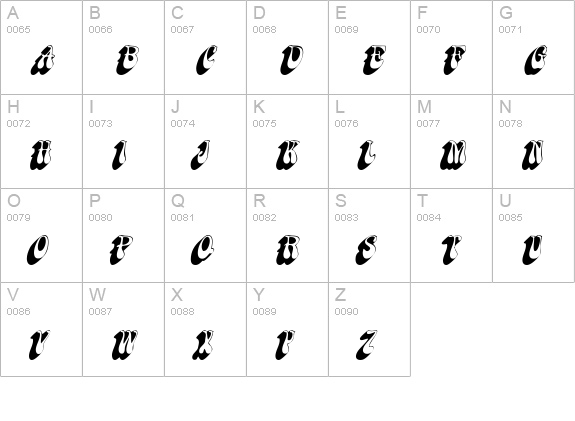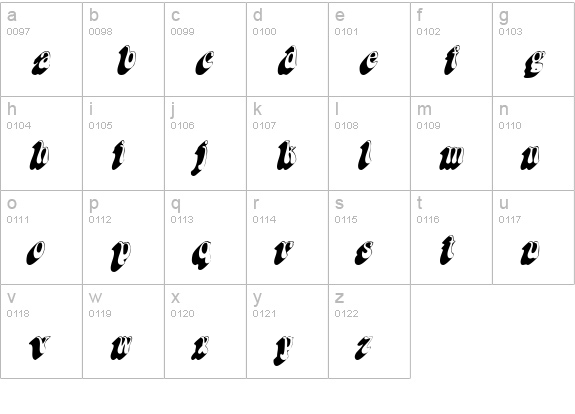
BoopShadow Italic Font Details
BoopShadow Italic is a distinctive, italic variant in the BoopShadow typeface family \xE2\x80\x94 well suited to design and typography projects.
BoopShadow Italic font is a charming and playful typeface that adds a touch of whimsy to any design project. The italicized style of this font gives it a dynamic and energetic feel, making it perfect for projects that require a modern and stylish look. The unique shadow effect adds depth and dimension, making text stand out on the page. What's even better is that BoopShadow Italic font is available for free download at FontsMarket.com. This means you can easily access this fun and creative font to use in your personal or commercial projects without any cost. So why wait? Add a touch of personality to your designs with BoopShadow Italic font today!